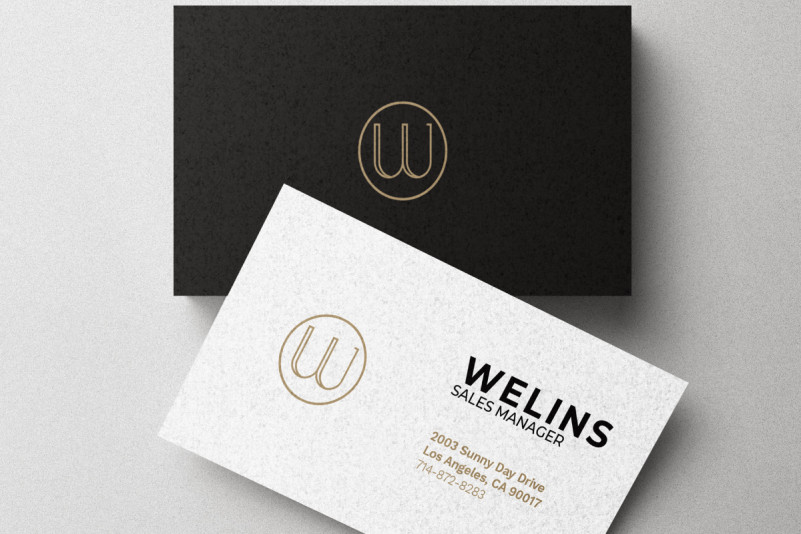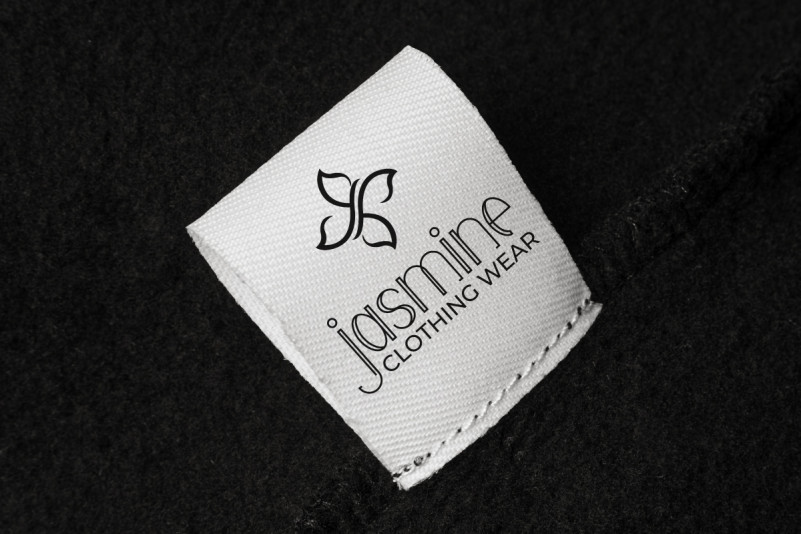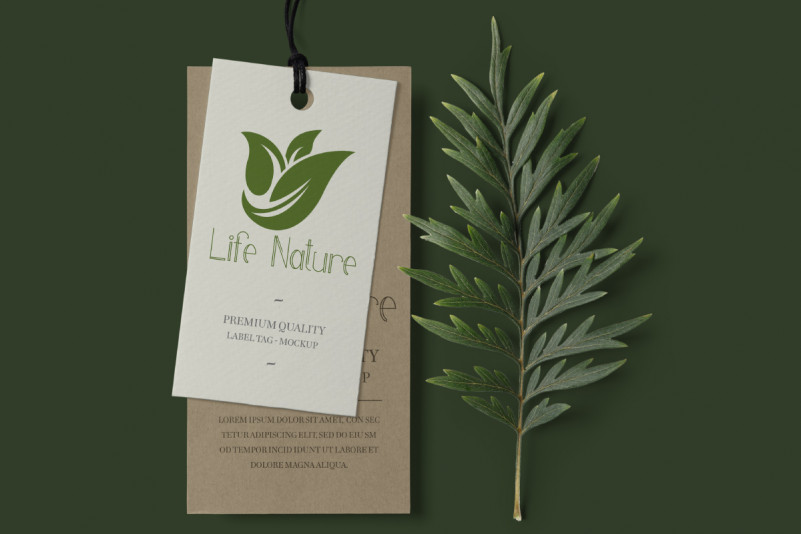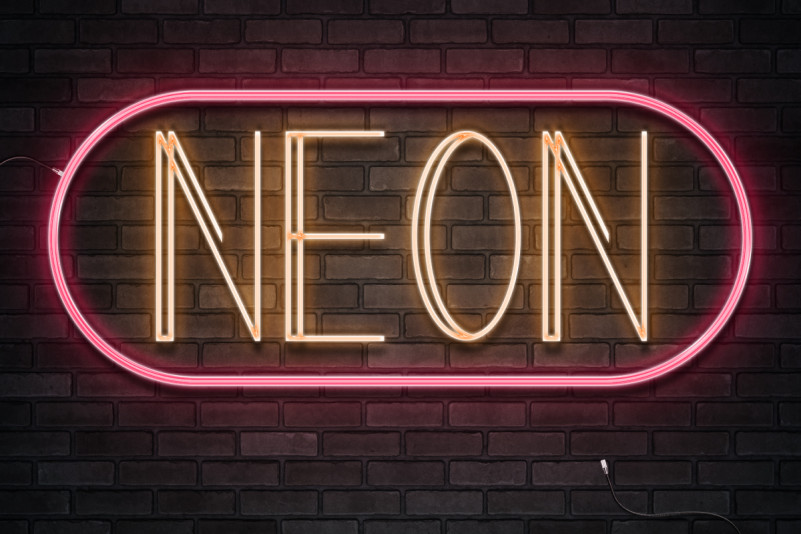
Melati Font
Melati Display Font
It’s a modern sophisticated sans serif font family, inspired from several high tech company, some beauties products and futuristic industries, designed by RaisProject. The font was handcrafted for any your special projects including : headlines, promotion, events, branding, advertising, magazine, signage, invitation, stationery, social media posts, label, or and any projects that need unique strong style. The industries for this font is Startup, Automotive, Apps, Cosmetic, Beauty, Technology, Game, Magazine, Music, Sport etc